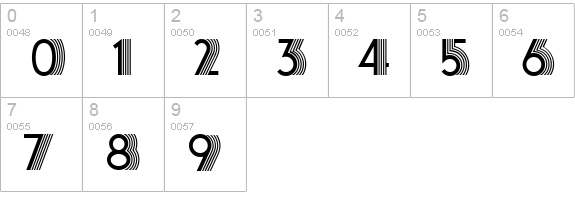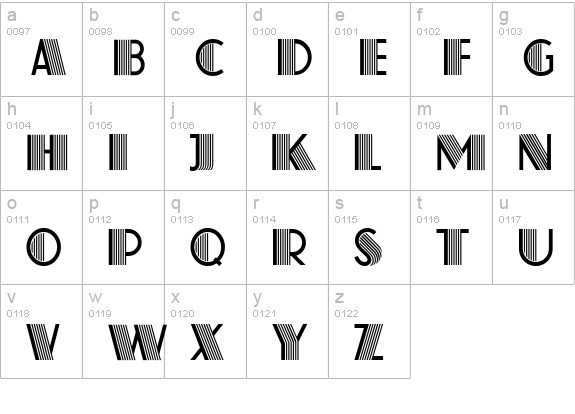
Introducing Farouk font - a modern and stylish typeface that exudes elegance and sophistication. With its sleek lines and well-balanced proportions, Farouk font is perfect for a wide range of design projects, from branding to editorial design. This versatile font is sure to make a statement and elevate your designs to the next level. What's even better is that Farouk font is completely free to download at FontsMarket.com. Yes, you read that right - this exquisite font can be yours at no cost. So why wait? Add Farouk font to your font library today and start creating stunning designs that stand out from the crowd.